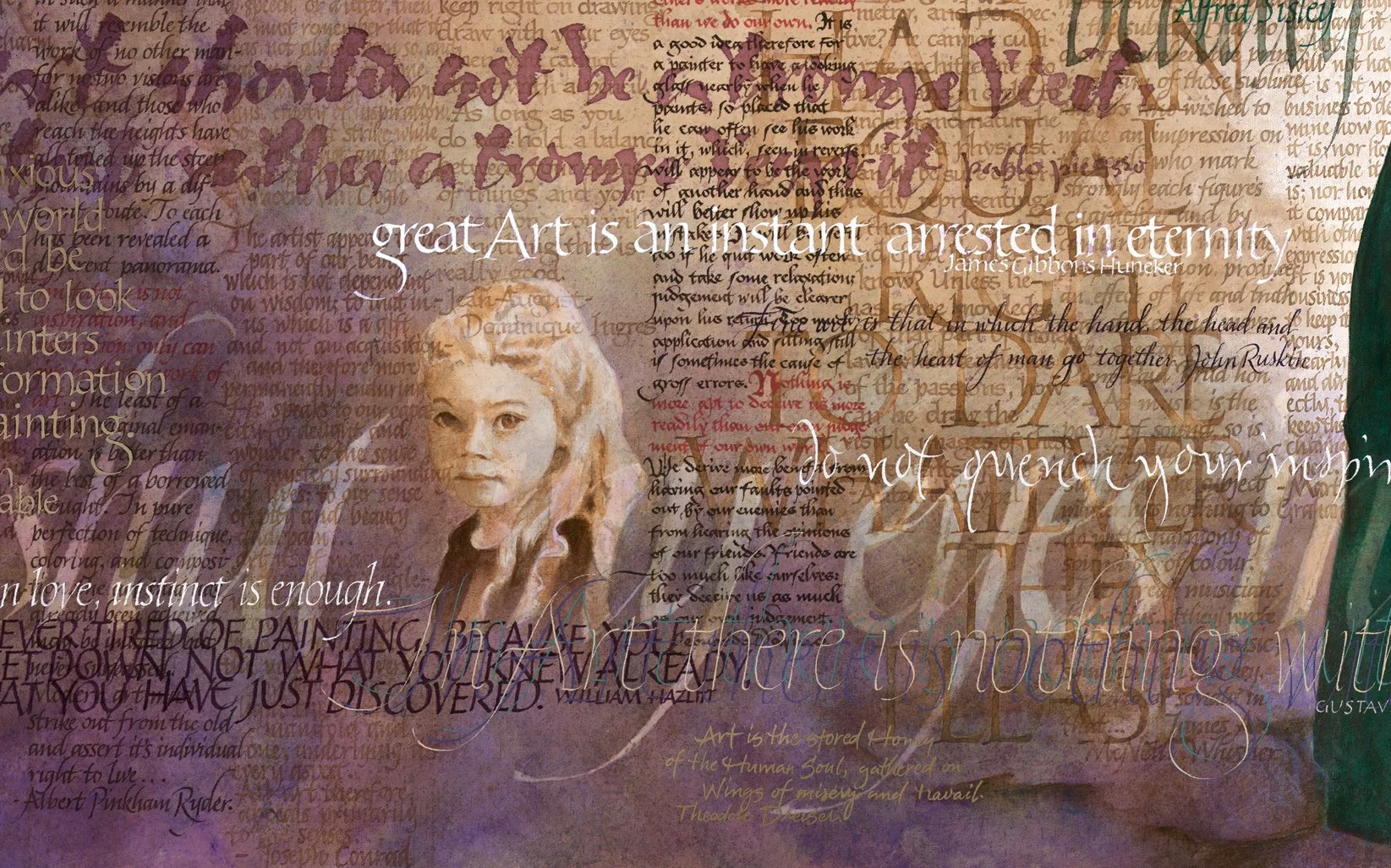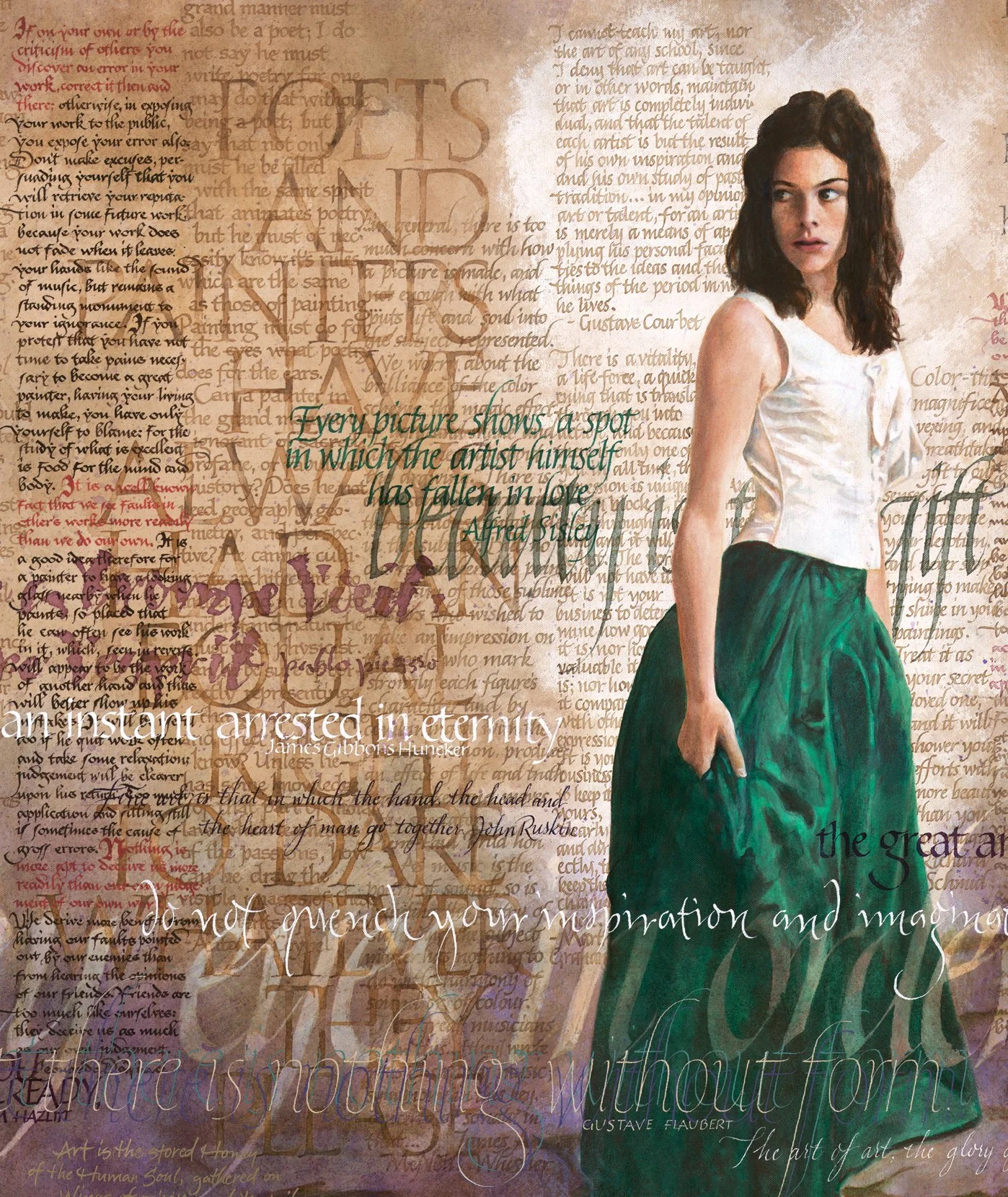
RANDALL HASSON | L’esprit
ARTIST | Randall Hasson
BASED IN | USA (California)
TITLE | L’esprit
SIZE | 1110 mm × 700 mm
MEDIUM | Acrylic on canvas
L’esprit is a fusion of artistic ideas shaped by influential creators throughout history. The work reflects Hasson’s ongoing study of artistic process, exploring how thoughts, influences, and conceptual insights evolve into finished visual form. The piece experiments with the use of text as texture, merging language and image.
Randall M. Hasson is an artist and calligrapher based in California, USA. An artist from a young age, he received formal calligraphy training under Marsha Brady and later Larry Brady in the certificate program at Cerritos College in Southern California. Over the course of his career, Randall has taught, lectured, and demonstrated at more than 25 arts, lettering, and educational conferences across the United States, Canada, and England. He is also an author of numerous articles on art and lettering-related subjects, and is widely recognised as a presenter and instructor within the calligraphic community.